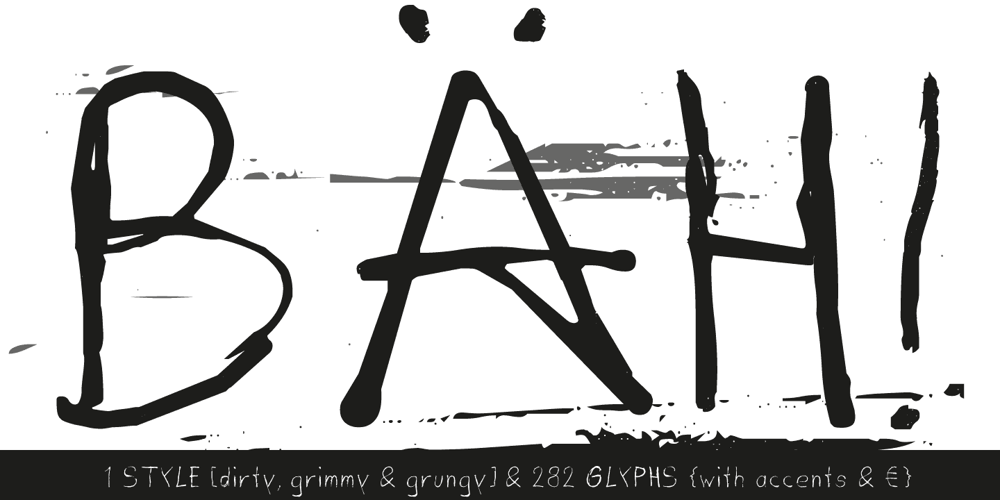
Dirty Deo Hand Ink Font Family was designed by Manuel Viergutz and published by TypoGraphicDesign. Dirty Deo Hand Ink contains 1 styles and family package options. CONCEPT/CHARACTERISTICS Experimental analog handwritten style. Handwritten in ink in a conventional roll-on deodorant. The dirty, grimmy Grunge-Look and the sloppy, rough Handwritten-Look script character, gives the typeface a high recognition value and uniqueness. The motto is handmade, rough & experimental. APPLICATION AREA The rough, ink-like, handwritten look of the handmade font „dirty deo hand ink“ would look good at logos, display size for poster, flyer, comics and graphic novel lettering, headlines in magazines or websites, packaging, music covers or webbanner etc. TECHNICAL SPECIFICATIONS Headline Font | Display Font | Raw Trash Script Font „dirty deo hand ink“ OpenType Font with & 282 glyphs & 1 style (regular). Symbols and ligatures (with accents & €)